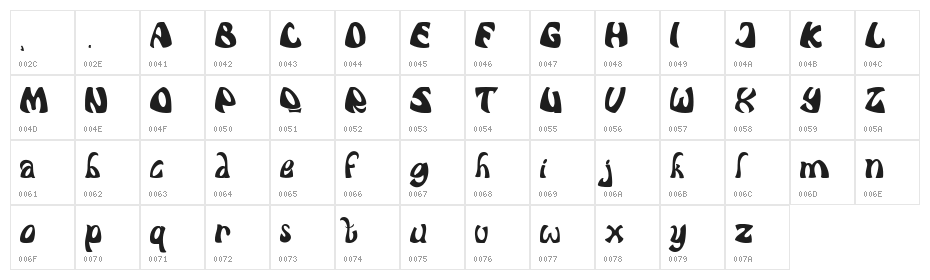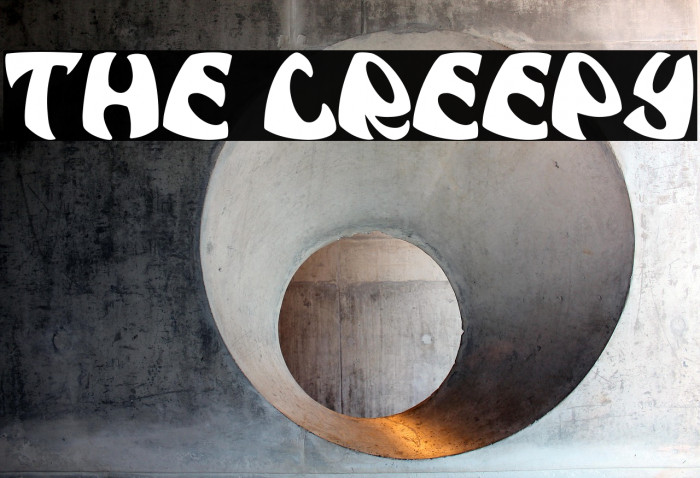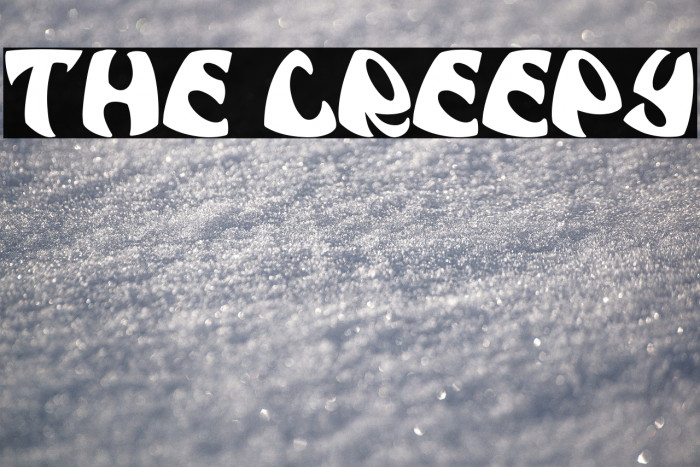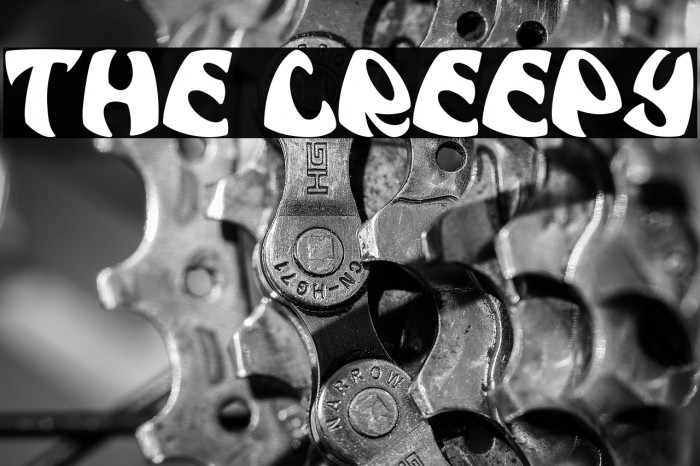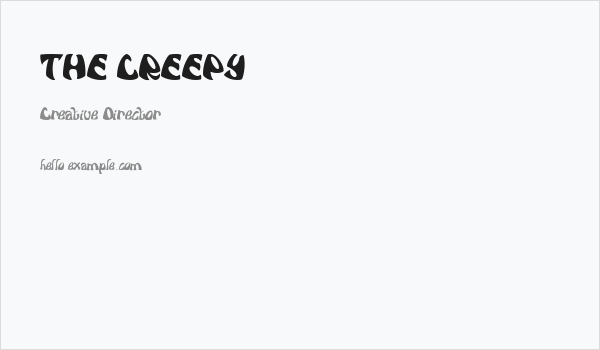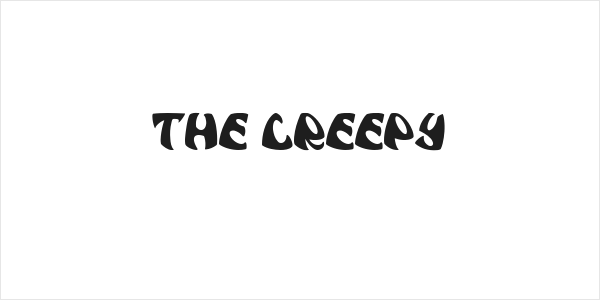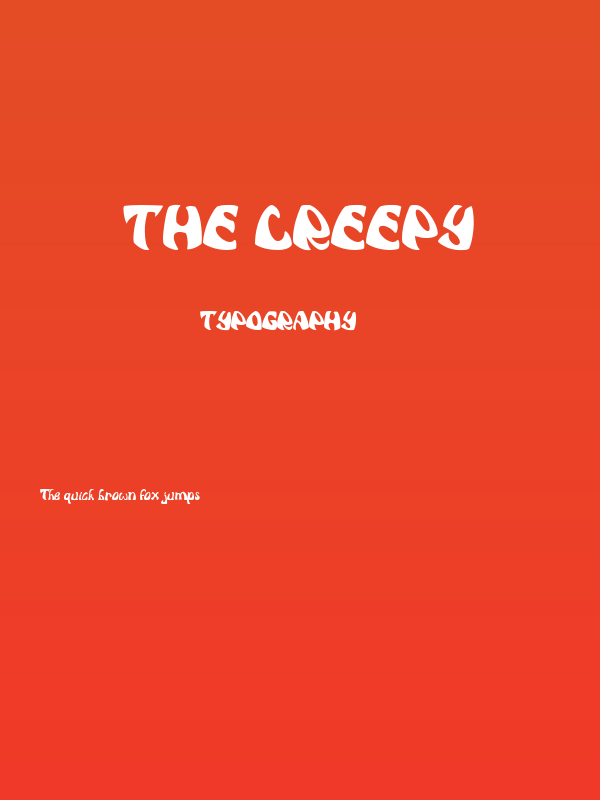
THE CREEPY Font
THE CREEPY Description
This font features a bold and playful design with a quirky, slightly eerie aesthetic. The characters are rounded and have a whimsical, almost cartoonish style that gives them a unique personality. The uppercase and lowercase letters maintain a consistent flow, with exaggerated curves and varying stroke widths that add to the font's dynamic appearance. The numbers and special characters are equally stylized, ensuring a cohesive look across all elements. This font is ideal for projects that require a fun and eye-catching typeface with a touch of mystery.
| Proposed Projects | Ideal for Halloween-themed designs, children's book covers, playful branding, or any project needing a whimsical touch. |